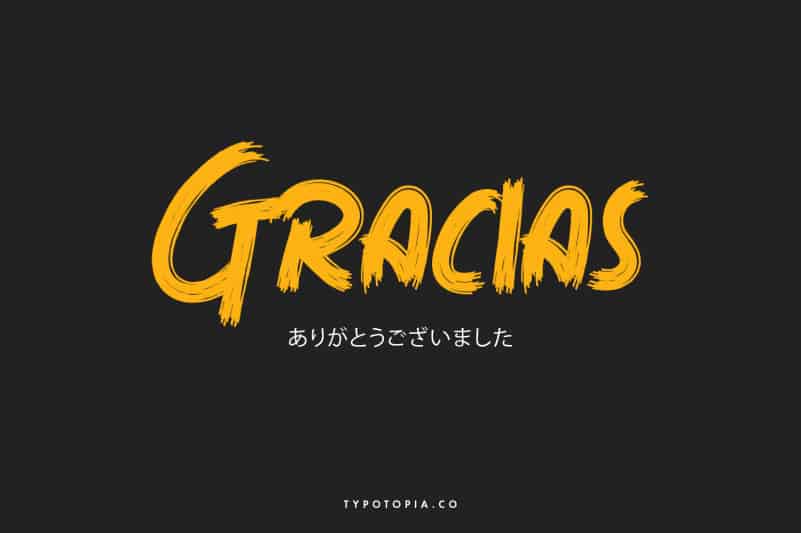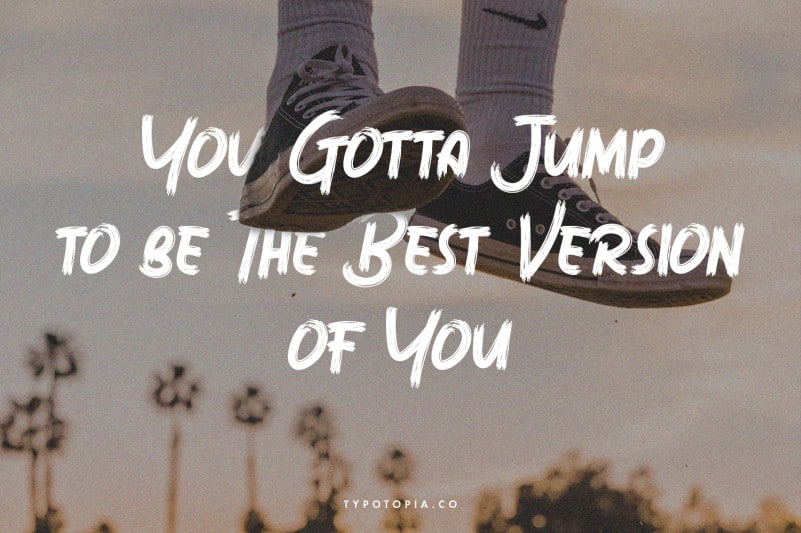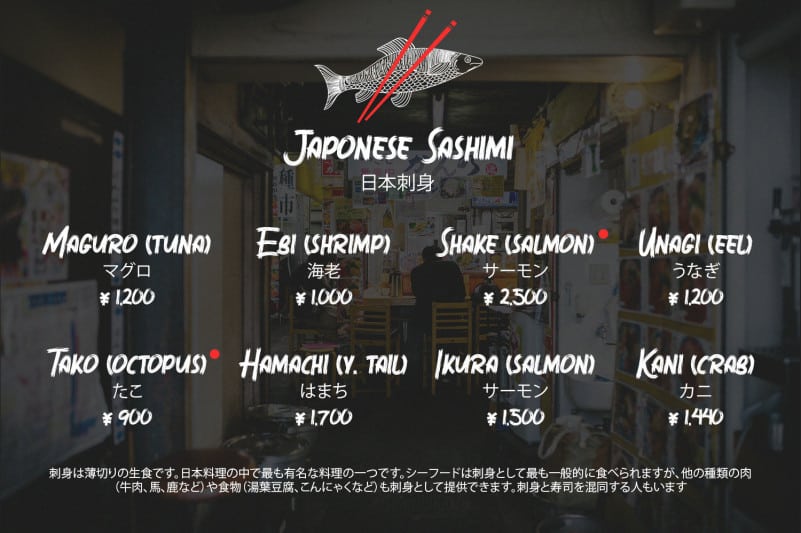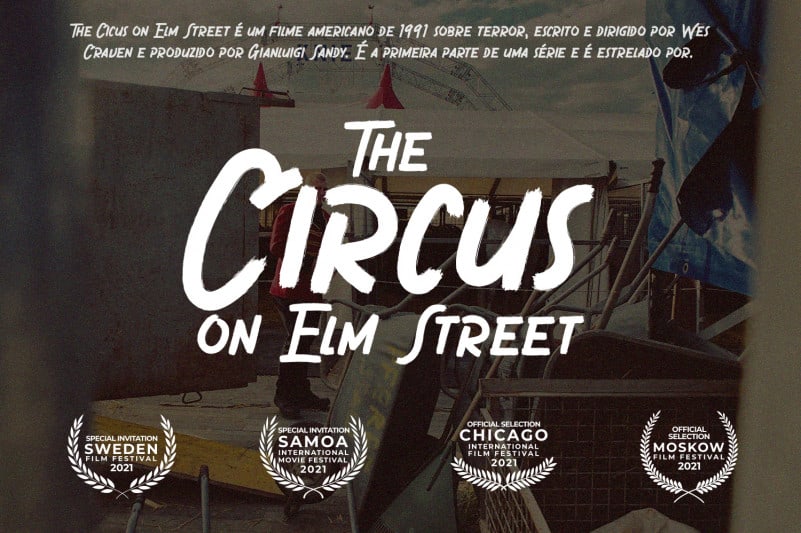
Devilish Brush Font
Introducing Devilish Brush Font, The Trio Font. This Typeface Comes with 3 Style of Fonts that you can use.
Devilish Brush Font is the great choice for several purpose, it suitable for for headline, logotype, apparel, invitation, branding, packaging, advertising etc.